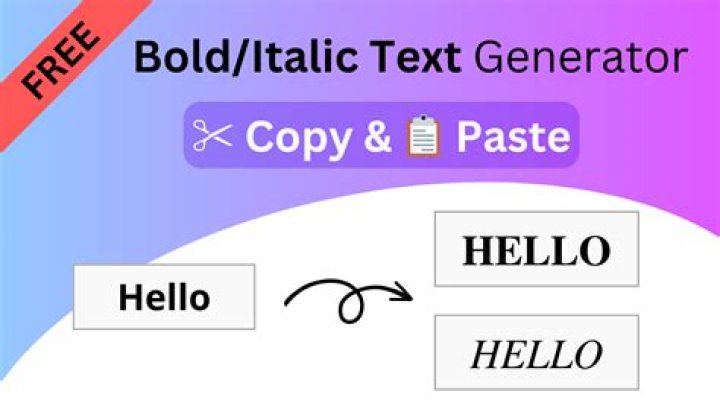
How do I make my font bold and italic?
Here’s what you need to know about formatting text with shortcuts in Word:
- To make your selected text bold or start writing text in bold, press the Crtl + B keys on your keyboard.
- To make your selected text italic or start writing text in italic, press the Ctrl + I keys on your keyboard.
What are the codes for bold and italics?
Example#
- Bold Text. To bold text, use the or tags: Bold Text Here
- Italic Text. To italicize text, use the or tags: Italicized Text Here
- Underlined Text.
How can you italic the font style?
Use the tag The “em” in literally stands for emphasis. Browsers will, by default, make italicize text that is wrapped in HTML tags.
How do I type in italics on my laptop?
Italic text: Ctrl + I — “I” is for “italic.” This shortcut works for new text you type after using it, or you can highlight existing text and then add italics via the shortcut. You can also use the shortcut to turn italics off.
What is bold and italic called?
You could refer to it as triple emphasis, or if you need precision, stick with bold, italic and underline.
How do you make font bold and italic in HTML?
Open up the phrase you want bold and italicized with the tag. Open up the phrase that you want bold and italicized with the tag. Type the text you want boldfaced and italicized. Type the closing tag for the italicizing, .
What are the different font styles?
Serif and sans serif are two of the most common types of font styles. Serif fonts have a variety of lettering designs but are commonly used to print large amounts of text due to their easily readable qualities. Serif fonts are characterized by their additional strokes at the end of individual letters.
When do you italicize text?
Titles of full works like books or newspapers should be italicized. Titles of short works like poems, articles, short stories, or chapters should be put in quotation marks. Titles of books that form a larger body of work may be put in quotation marks if the name of the book series is italicized.
When to use italics in your writing?
Use italics to denote legal cases. In APA style, if you are not sure whether something should be italicized, the preference is to not italicize it. Many writers for the web prefer to use underlining or quotation marks to highlight text. This is because italics can be difficult to distinguish on a computer screen.
What do you italicize in MLA?
You should italicize the titles of newspapers, journals, magazines, and radio series. News programs with a specific name should also be italicized. As with the literary examples, italicize these titles on your works cited page or bibliography in Chicago or MLA style and use title case.